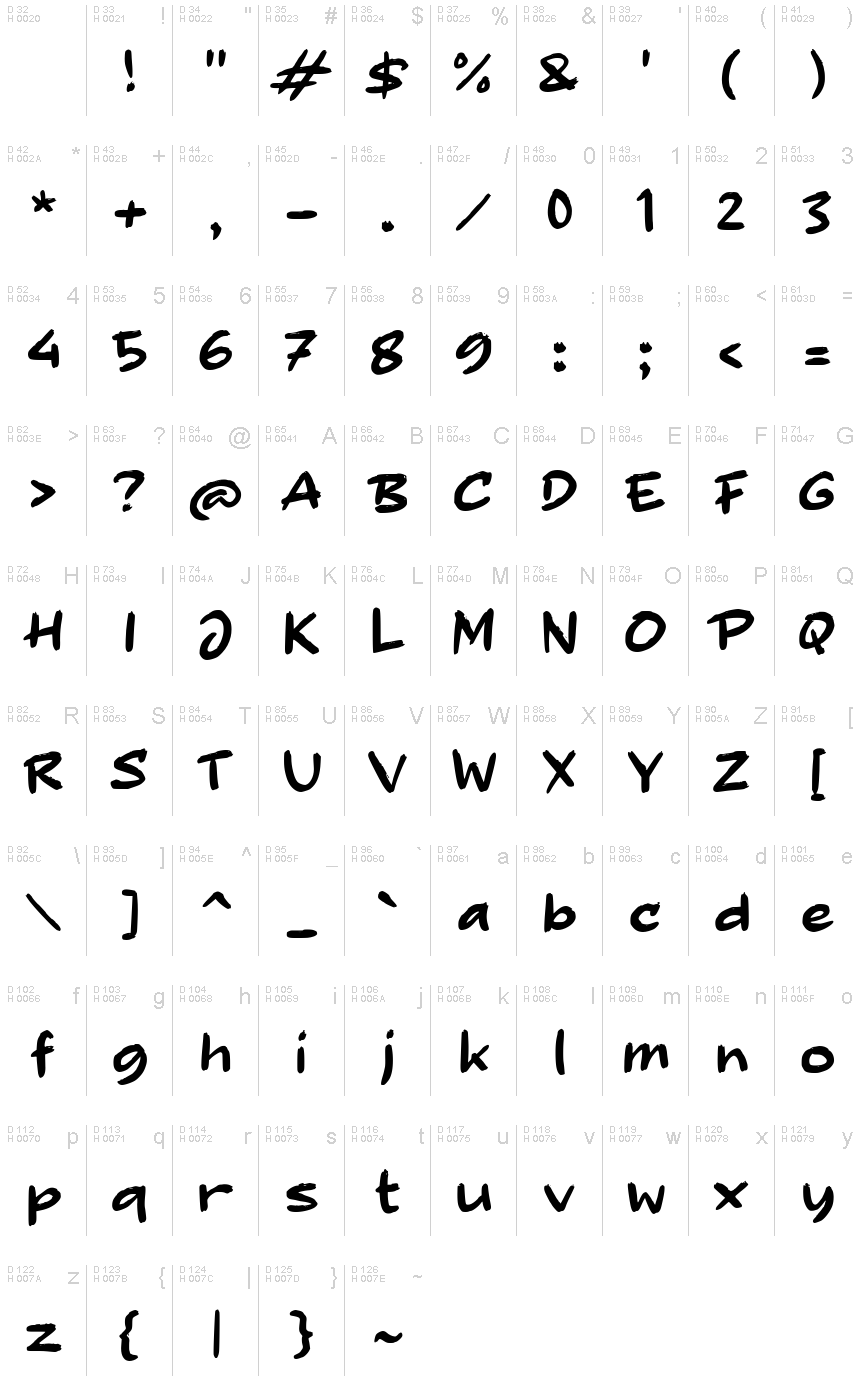
GADO
Gado is a captivating brush font that instantly commands attention. Its bold, expressive strokes and expanded width create a striking, dynamic presence that can instantly elevate any design.
The fluid, organic lines evoke a sense of movement and energy, making it a versatile choice for a wide range of applications. From bold headlines and impactful branding to eye-catching packaging and editorial layouts, Gado's distinctive character adds a touch of artistry and personality to any project.
Its expressive flair and commanding presence make it an exceptional selection for designers seeking to make a lasting impression with their work.